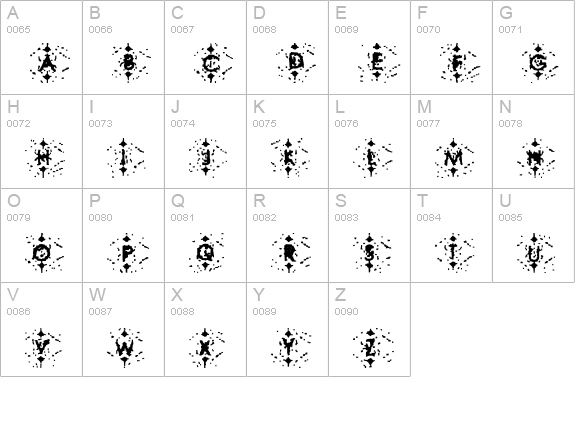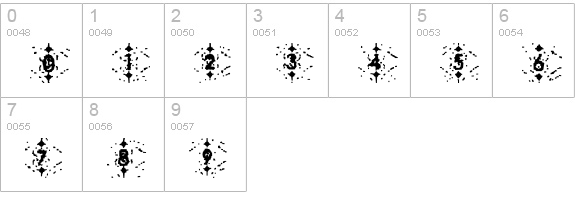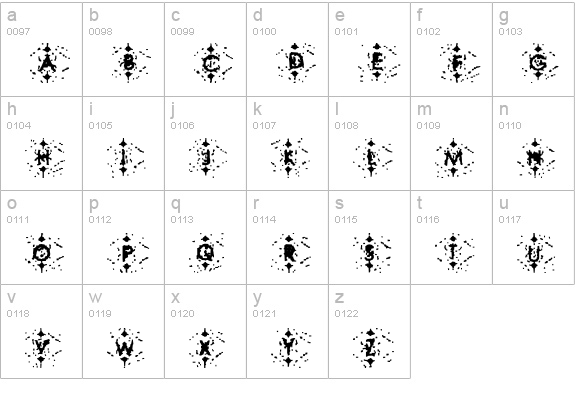
Mischstab Avocado Trauma Font Details
Mischstab Avocado Trauma font is a unique and eye-catching display typeface that is sure to make a statement in any design project. With its playful yet sophisticated aesthetic, this font is perfect for adding a touch of whimsy and charm to your creations. The irregular letterforms and quirky details give Mischstab Avocado Trauma font a distinct personality that sets it apart from other fonts. Best of all, Mischstab Avocado Trauma font is available for free download at FontsMarket.com. This means you can easily add this delightful font to your collection without any cost, making it a valuable resource for all your design needs. Whether you're working on a branding project, poster design, or any other creative endeavor, Mischstab Avocado Trauma font is sure to bring a fresh and fun element to your work. Download it today and let your creativity flourish with this charming and whimsical typeface.